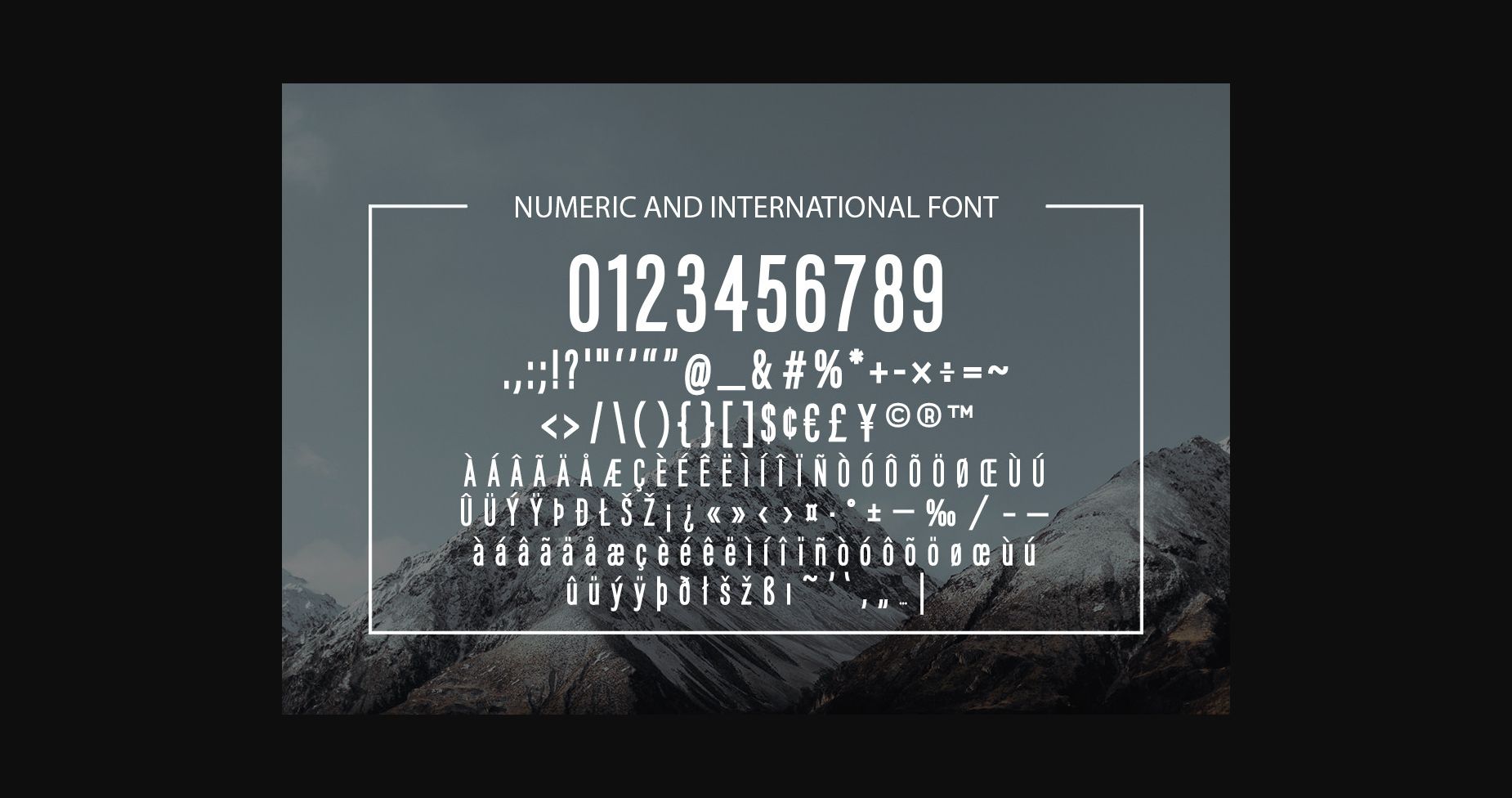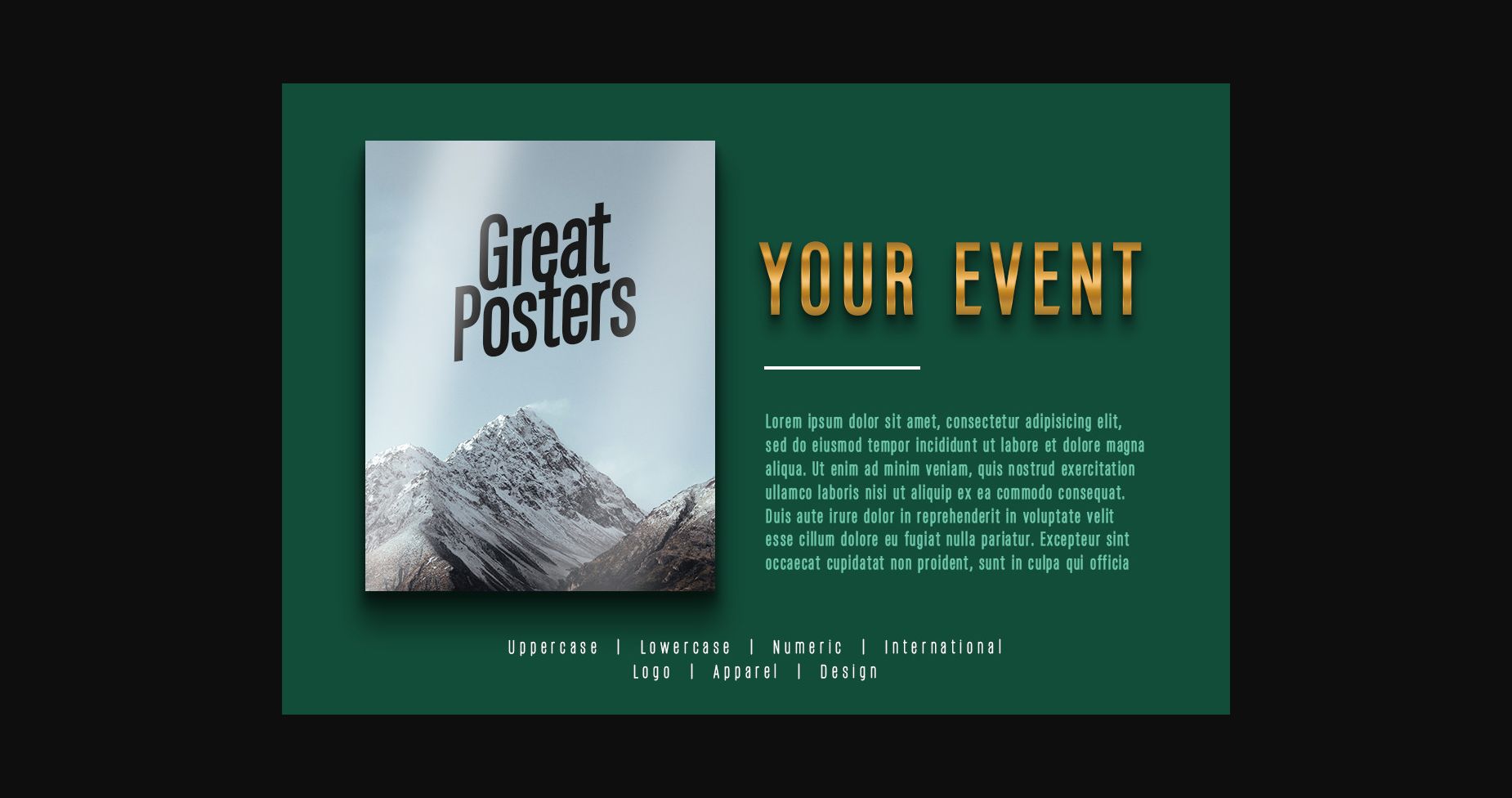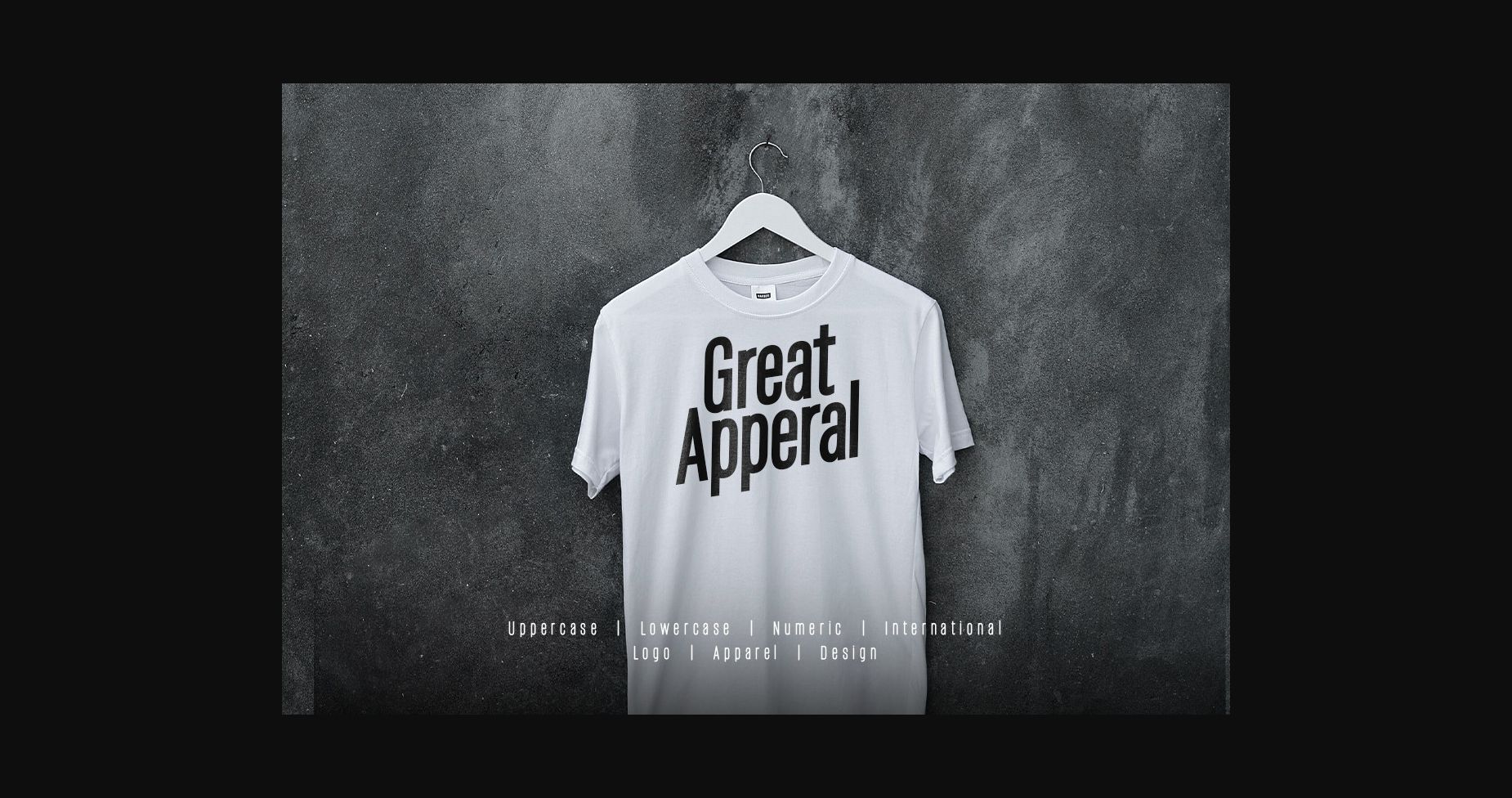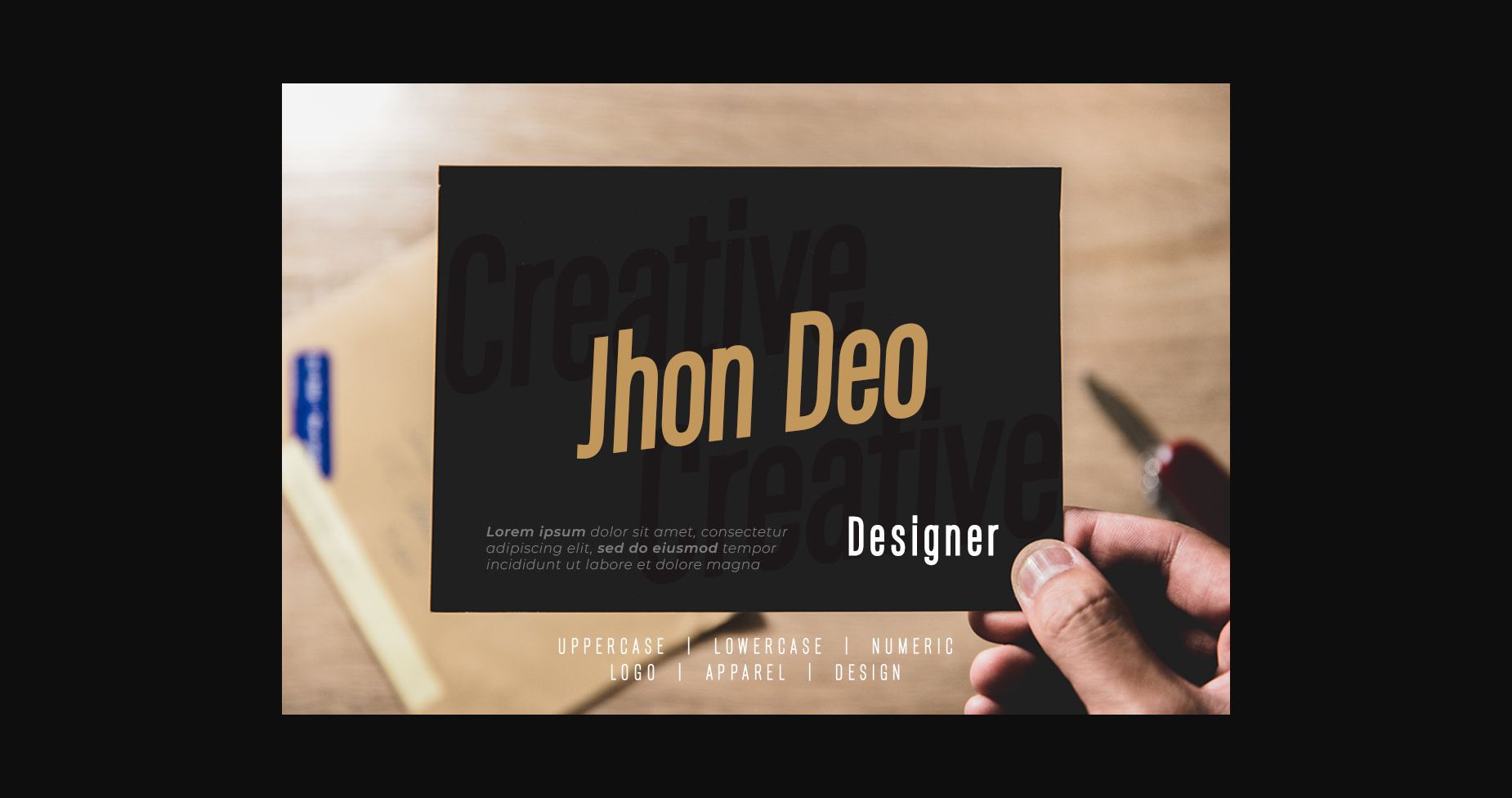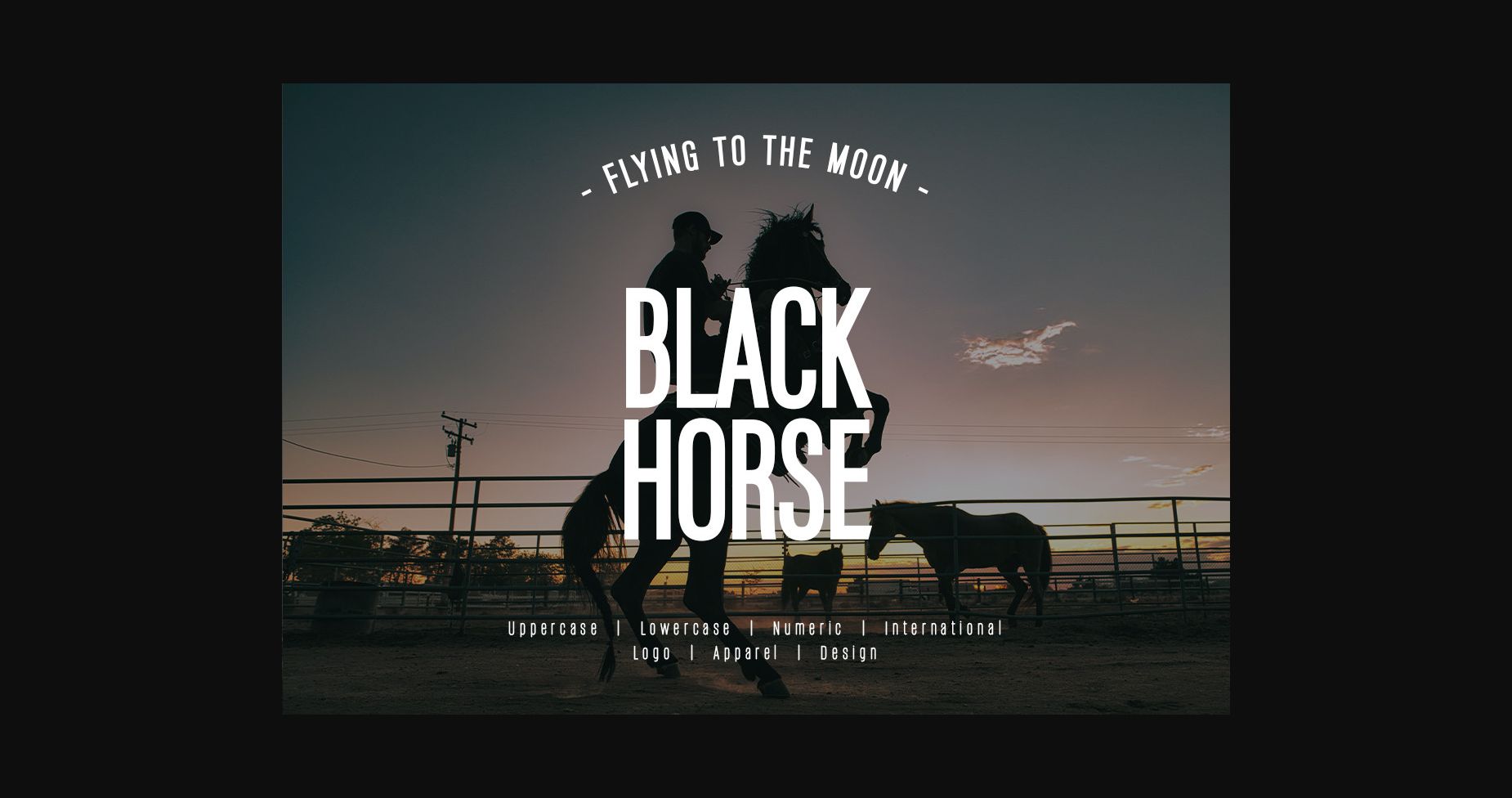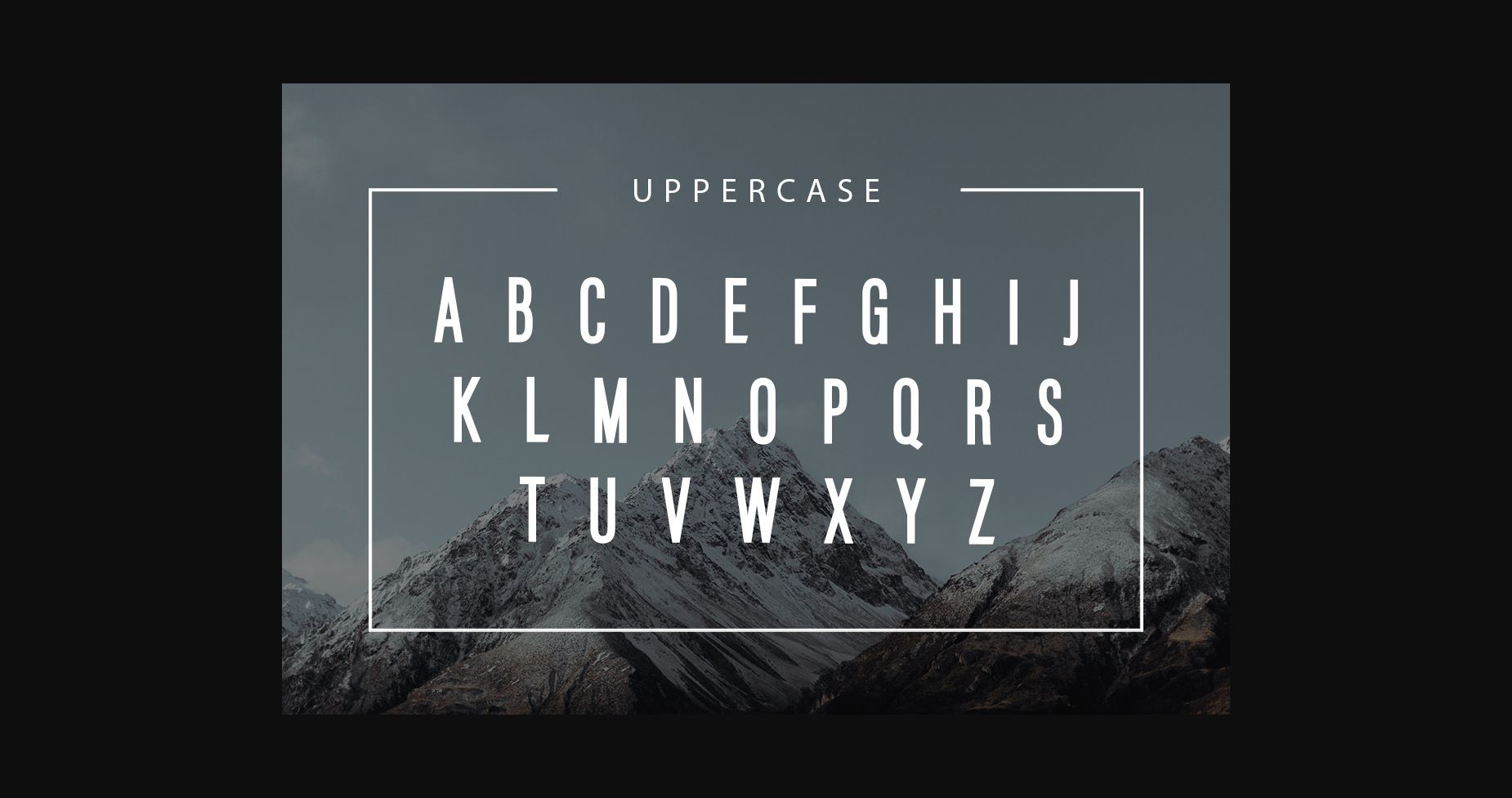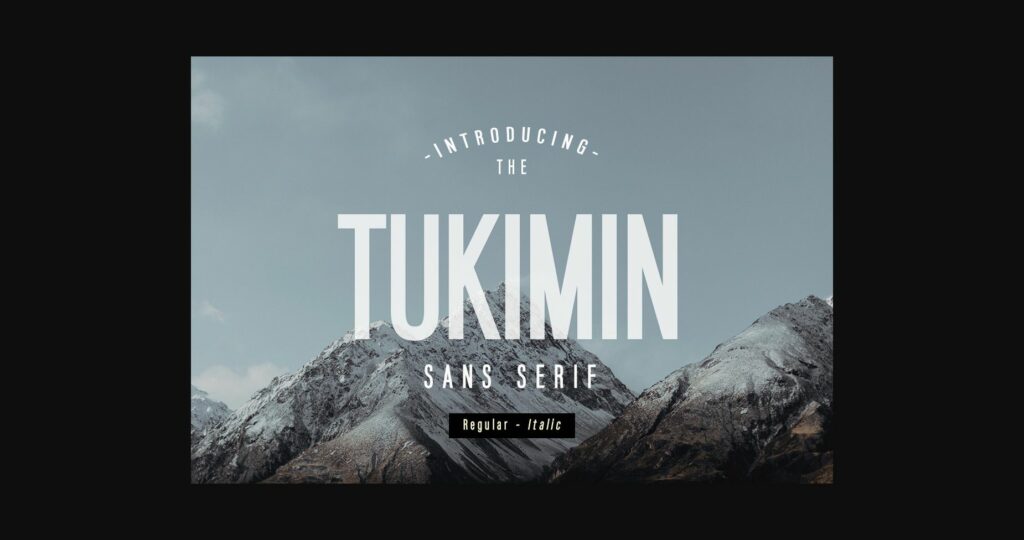
Tukimin Font
About Tukimin Font
Tukimin is a modern and sleek sans-serif font suitable for posters, logos, music covers, clothing, and many other cool design projects.